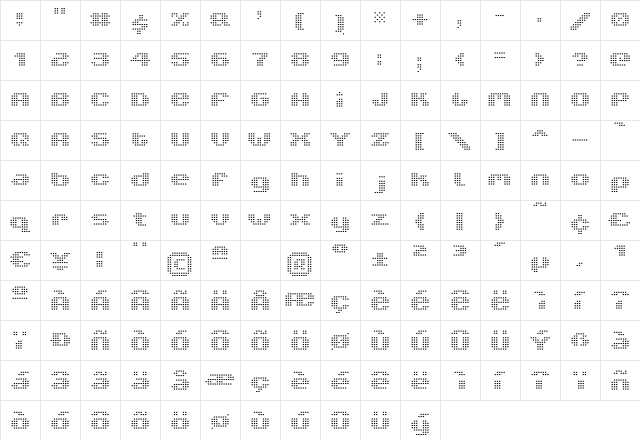
V5 Xtender LoinFront
Design Context for V5 Xtender Typeface
V5 Xtender is a composed and adaptable typeface that performs quietly and consistently across a wide range of design contexts.